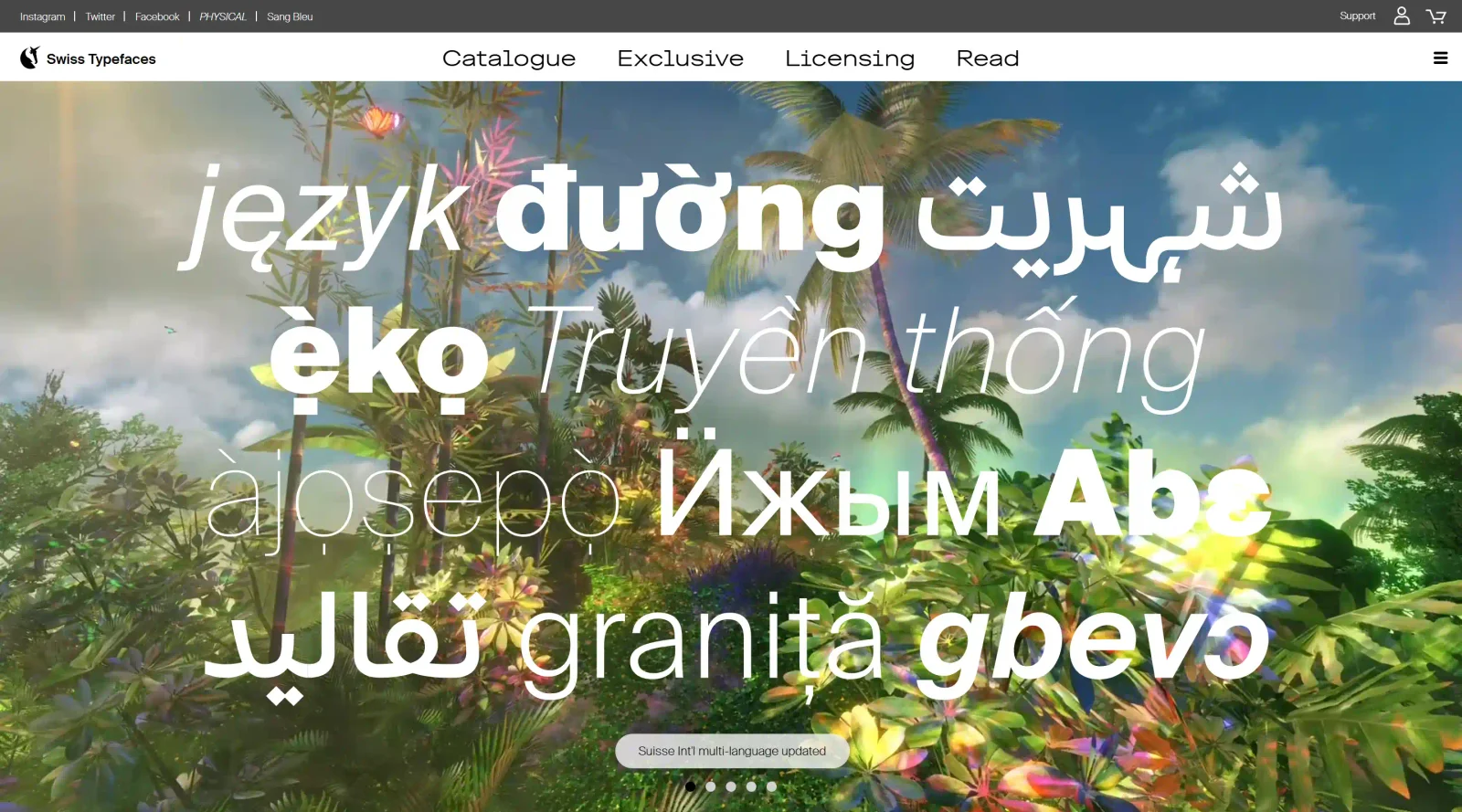
About Swiss Typefaces
What Is Swiss Typefaces?
Swiss Typefaces is a Swiss type design company focused on creating and distributing typefaces through an innovative approach to typography. Operating in the typography category, it offers paid access to its font collections, fitting into design workflows where designers select and license custom or specialized typefaces for projects requiring precise typographic control. Swiss Typefaces draws from Switzerland's rich heritage in sans-serif fonts and grid-based layouts, providing tools for modern graphic and digital design applications.
What Swiss Typefaces Does
- Designs original typefaces, including monospaced variants like those derived from Simplon Mono for specific artistic projects.
- Distributes font families that connect historical typographic paradigms with contemporary needs.
- Customizes typefaces to meet client requirements, adapting designs for posters, branding, and visual communications.
- Maintains a focus on sans-serif styles influenced by Swiss typographic traditions such as those seen in Helvetica and Univers.
- Produces typefaces suitable for variable designs and pre-modernist aesthetics from 17th- and 18th-century inspirations.
How Swiss Typefaces Can Be Used
- In graphic design workflows for creating posters and signage, where custom monospaced fonts like KRSNA provide uniformity for artistic series.
- For branding projects needing typefaces that blend Swiss Style clarity with neo-classical elements, ensuring legibility across languages.
- Within web and UI design to implement sans-serif fonts that maintain rhythm and hierarchy in asymmetrical layouts.
- In print production for corporate communications, leveraging font families for consistent weights and sizes akin to Univers.
- For custom typeface development in collaborative studio environments, adapting designs to specific content like visual art or advertising.
Who Is Swiss Typefaces For?